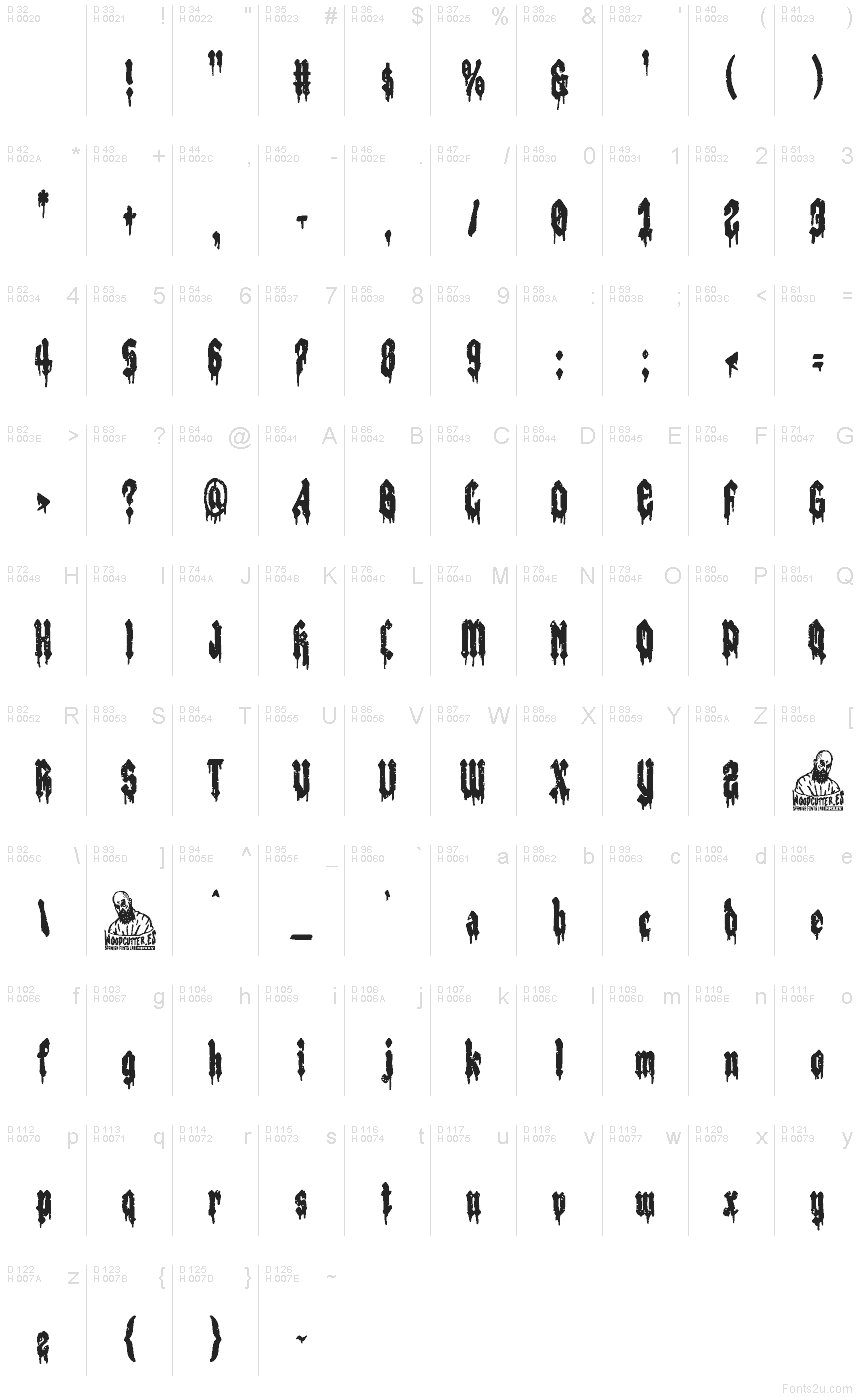
Steel Cousin
Steel Cousin font by Woodcutter is a free scary blackletter display font. Built around shredded Gothic forms that ooze like wet tar, it mixes jagged shoulders with inky drips and pitted textures. The letters feel heavy and rusted, as if stenciled on metal and left to corrode-high-impact, high-drama shapes that grab attention the second they land on the page.
Using Steel Cousin, headlines punch through noise for horror posters, haunted house flyers, metal band logos, Halloween merch, game titles, and escape room branding. It shines on large sizes where the gritty bleed shows. Pair this free font with a clean condensed sans for body copy to keep everything readable while the drips do the screaming.